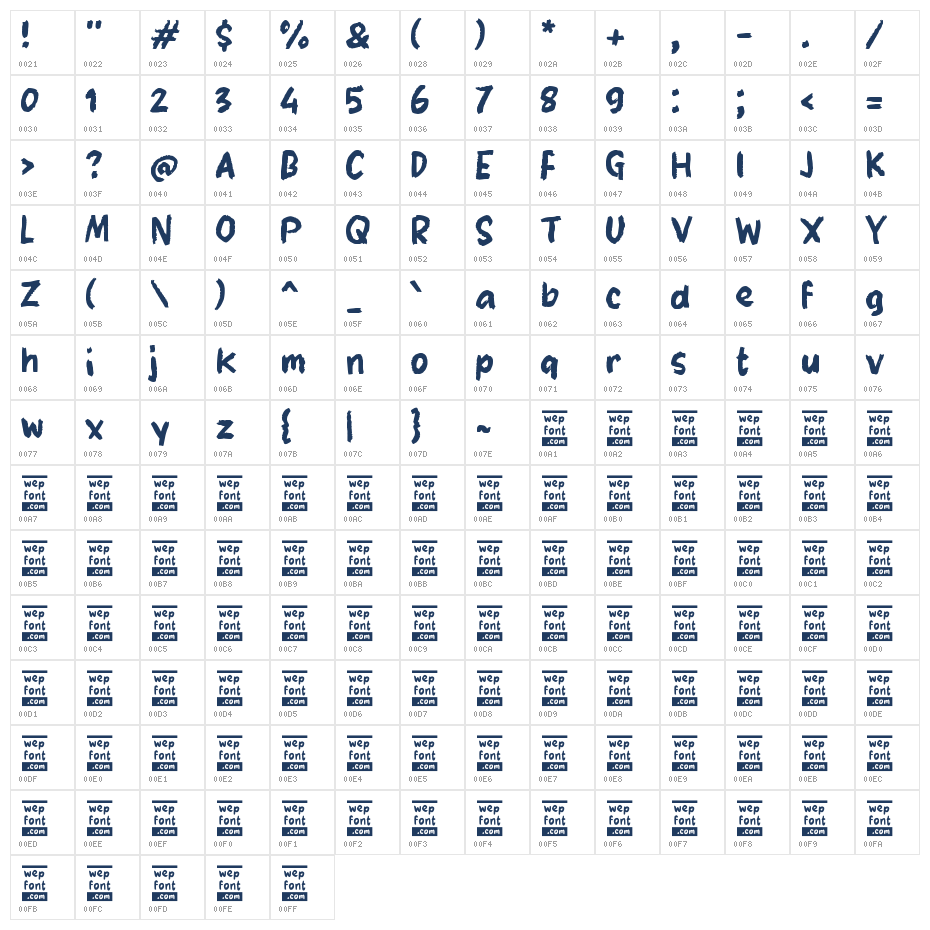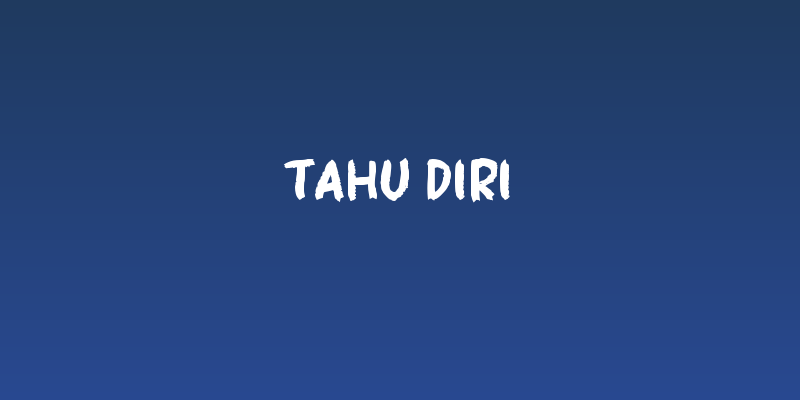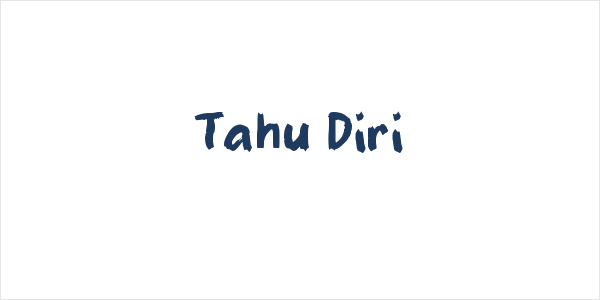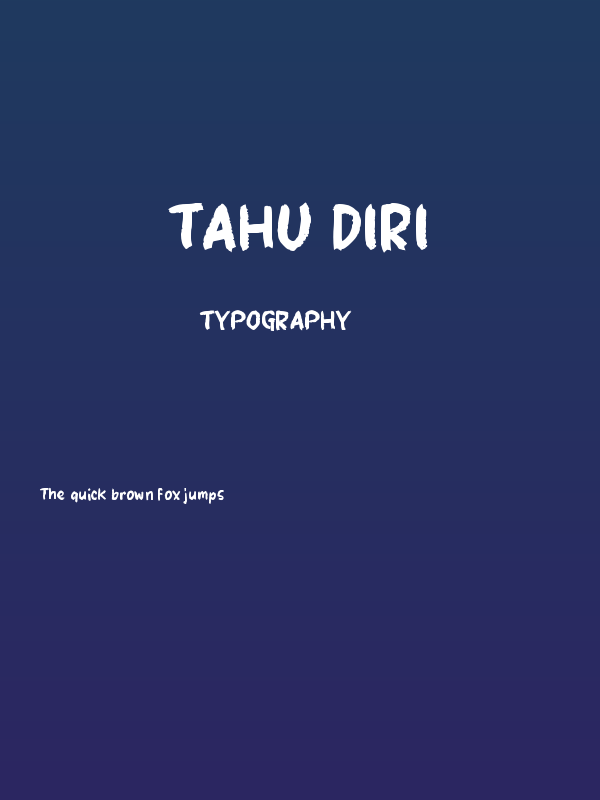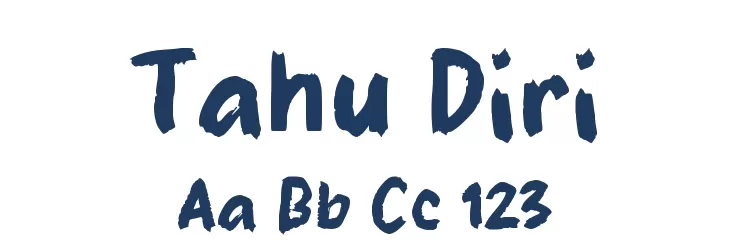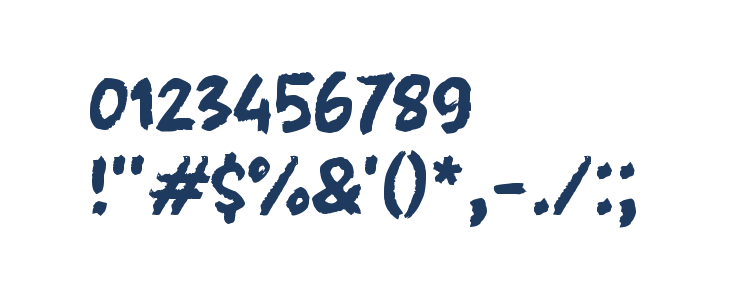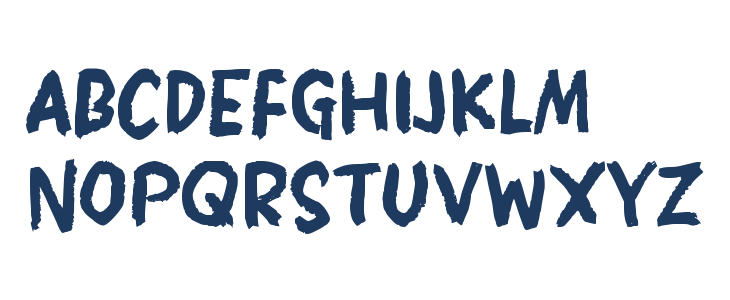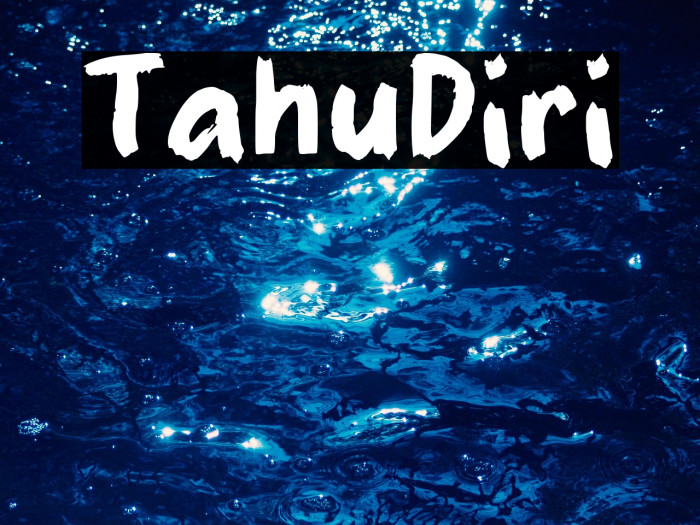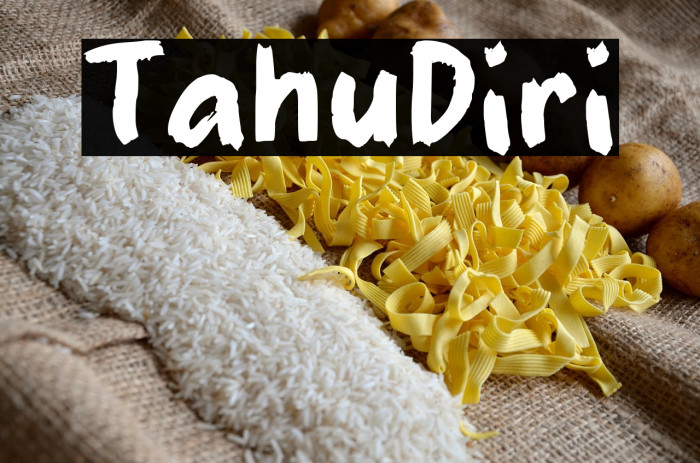
Tahu Diri Font
Tahu Diri Description
A bold, brush-stroke style handwritten font with a casual and playful appearance.
| Overall Style | Casual, Playful, Handcrafted |
| Use Case | Headlines, Logos, Posters, Creative branding |